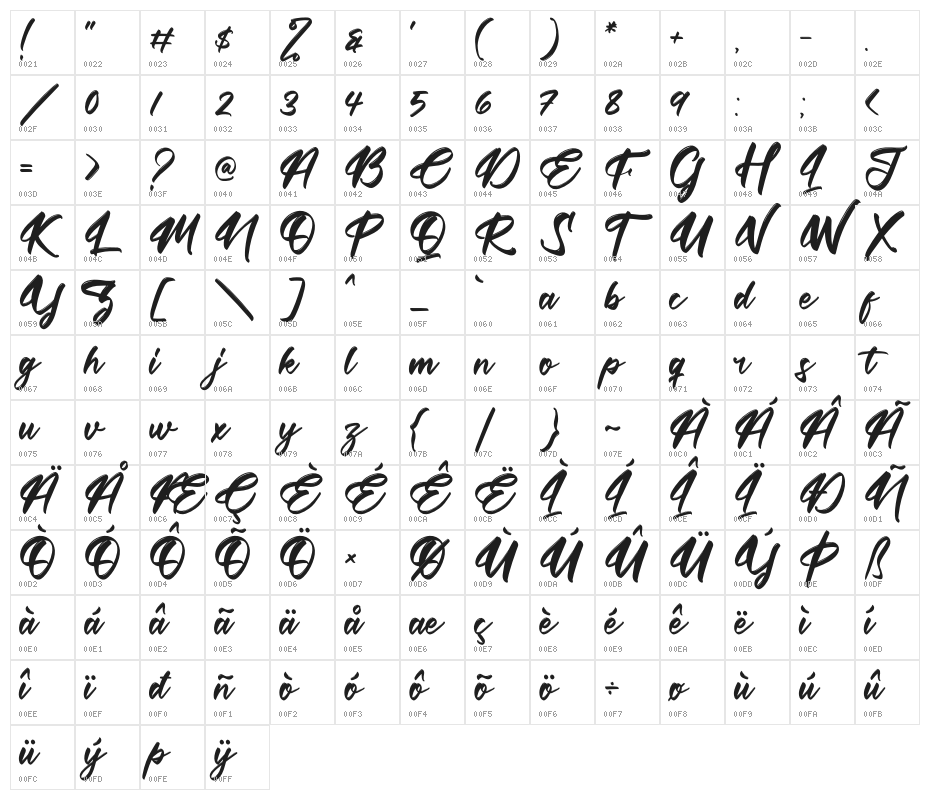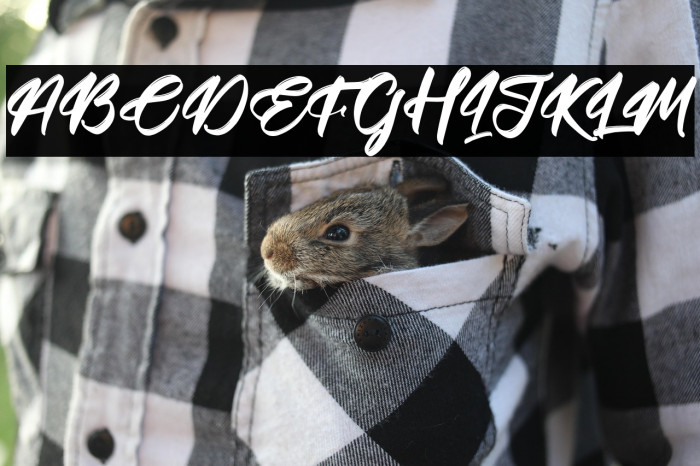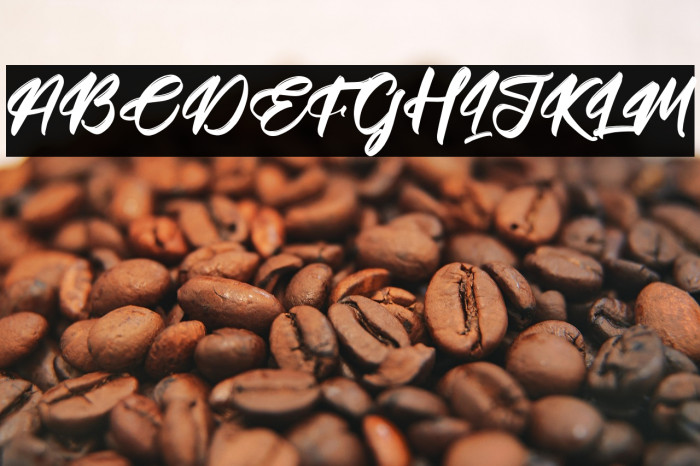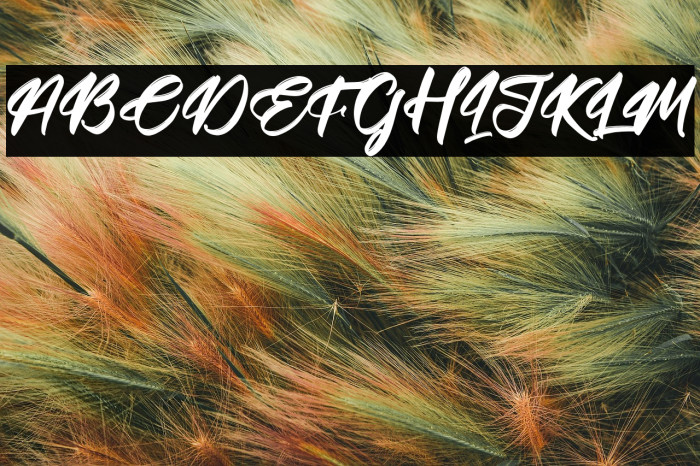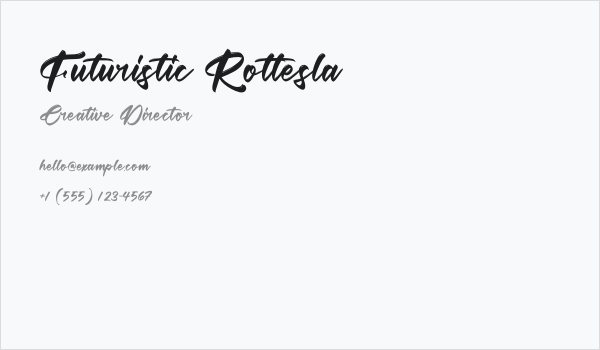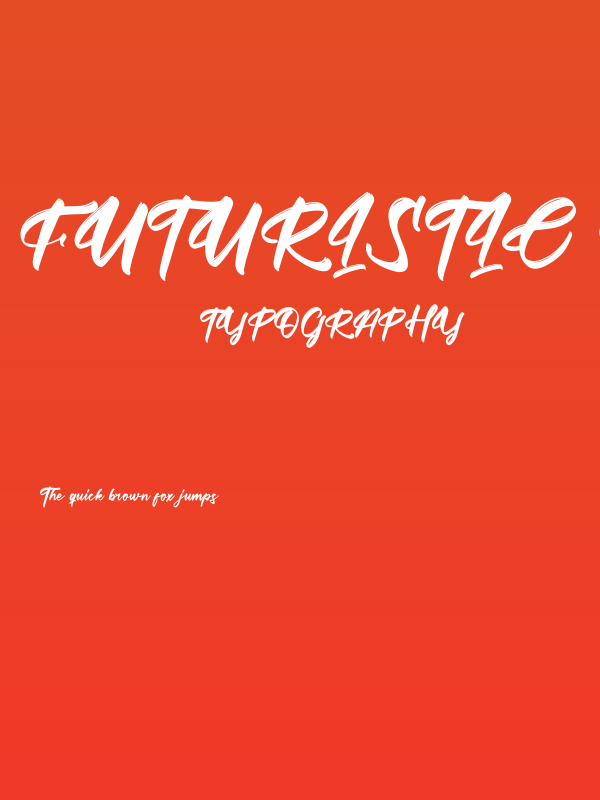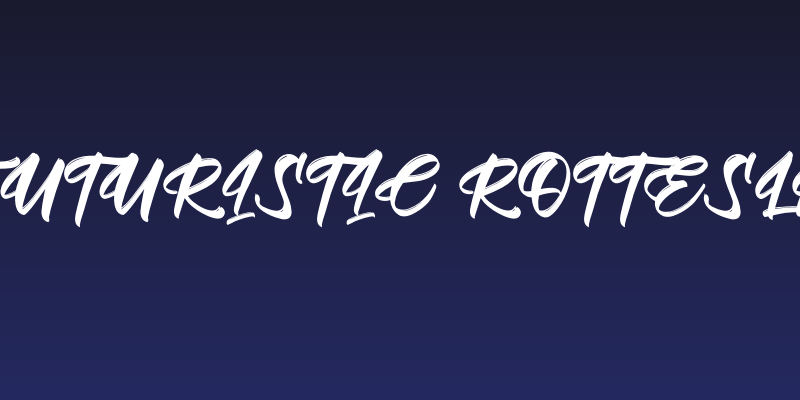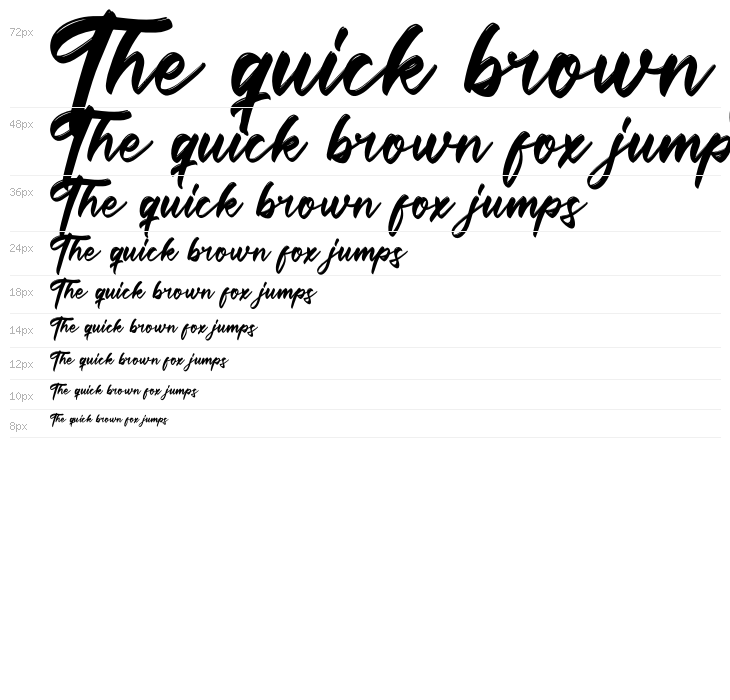
Futuristic Rottesla Font
Futuristic Rottesla Description
This font exudes a dynamic and energetic style, characterized by its bold and fluid script. The letters are interconnected with smooth, sweeping strokes that give it a sense of motion and elegance. The uppercase letters are slightly more angular, adding a touch of modernity, while the lowercase letters maintain a consistent flow. The numerals are distinct and easily readable, complementing the overall aesthetic. Special characters are integrated seamlessly, maintaining the font's cohesive look. This font is ideal for projects that require a personal, yet contemporary touch.
| Use Case | Logos, Headlines, Invitations |
| Proposed Projects | Ideal for branding, invitations, posters, and social media graphics. |